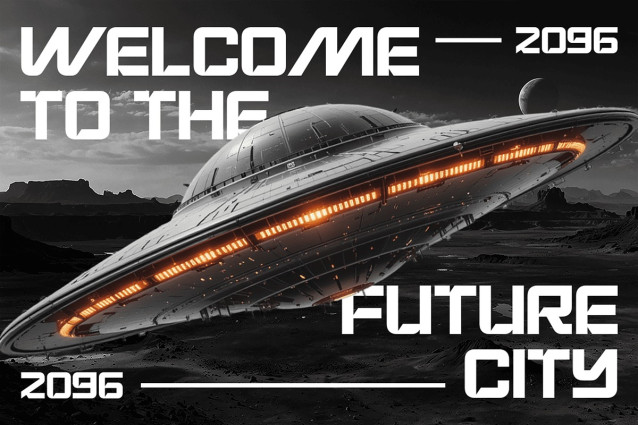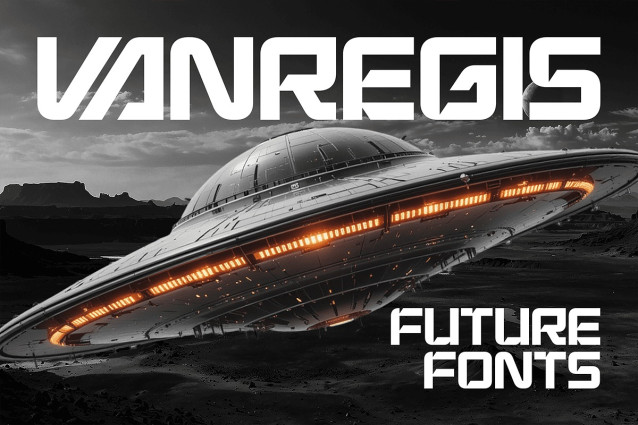
Vanregis Font
Vanregis Font, the groundbreaking font meticulously crafted to embody the sleek, enigmatic, and awe-inspiring aesthetic of the future. Inspired by the iconic sci-fi blockbusters, epic comics, immersive games, and futuristic toys that have shaped generations’ imaginations, Vanregis isn’t just a typeface—it’s a portal to the unknown.
Vanregis is engineered for impact. Its remarkably unique and bold letterforms command attention, fusing sharp angles with innovative cuts to create a sense of advanced technology and cutting-edge design. This is the font that speaks of interstellar journeys, cyberpunk skylines, and untold adventures, giving your projects an unparalleled edge that’s both modern and timeless.